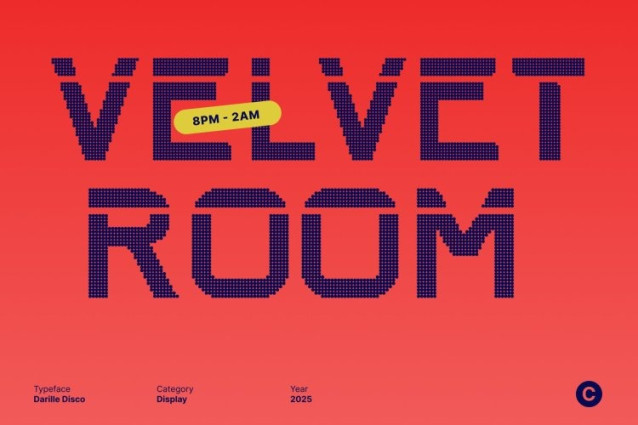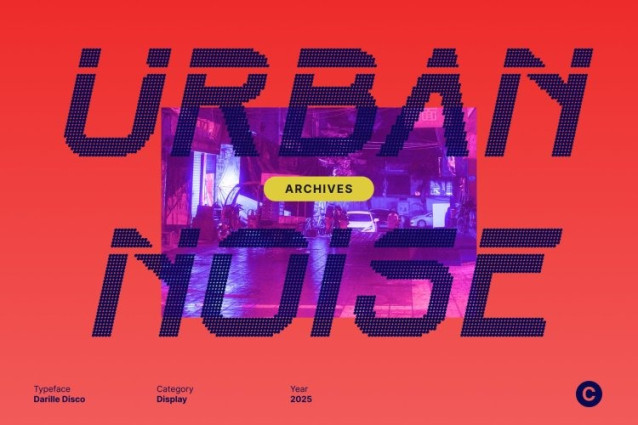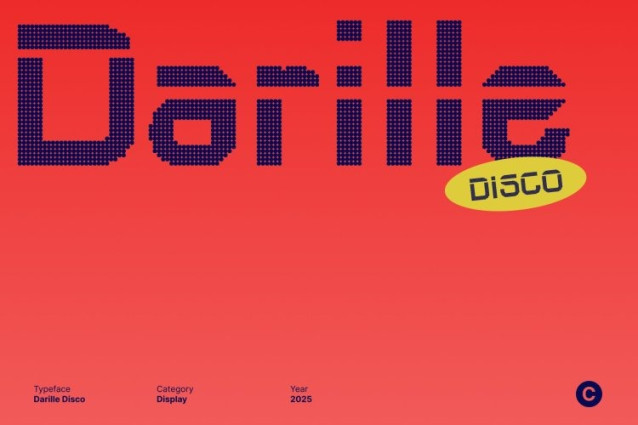
Darille Disco Font
Darille Disco Font This is a techno-inspired sans serif font crafted to deliver sharp, modern energy in every letter. Its dynamic construction and precise geometric forms create a sleek, forward-looking appearance that instantly elevates any digital or contemporary design.
Futuristic Disco Effect for Added Impact
Enhanced with a shimmering disco effect, this font brings a layer of futuristic shine that sets it apart from standard techno fonts. The sparkling accents introduce movement and vibrancy, making the typeface feel lively, expressive, and visually captivating perfect for designs that aim to stand out.
Ideal for Bold Branding and Strong Logos
With its striking structure and futuristic personality, this font excels in branding applications. It creates strong, memorable logos that communicate innovation and confidence. Whether used for tech companies, modern product lines, or digital-focused identities, this font ensures a compelling visual presence.
Perfect for Posters, Titles, and Digital Displays
Designed for maximum visibility and impact, this font performs exceptionally well in posters, headlines, and promotional layouts. Its energetic shapes and disco shine make it ideal for events, entertainment themes, and digital graphics where boldness and modern flair are essential. This font brings excitement, clarity, and futuristic charm to every project.